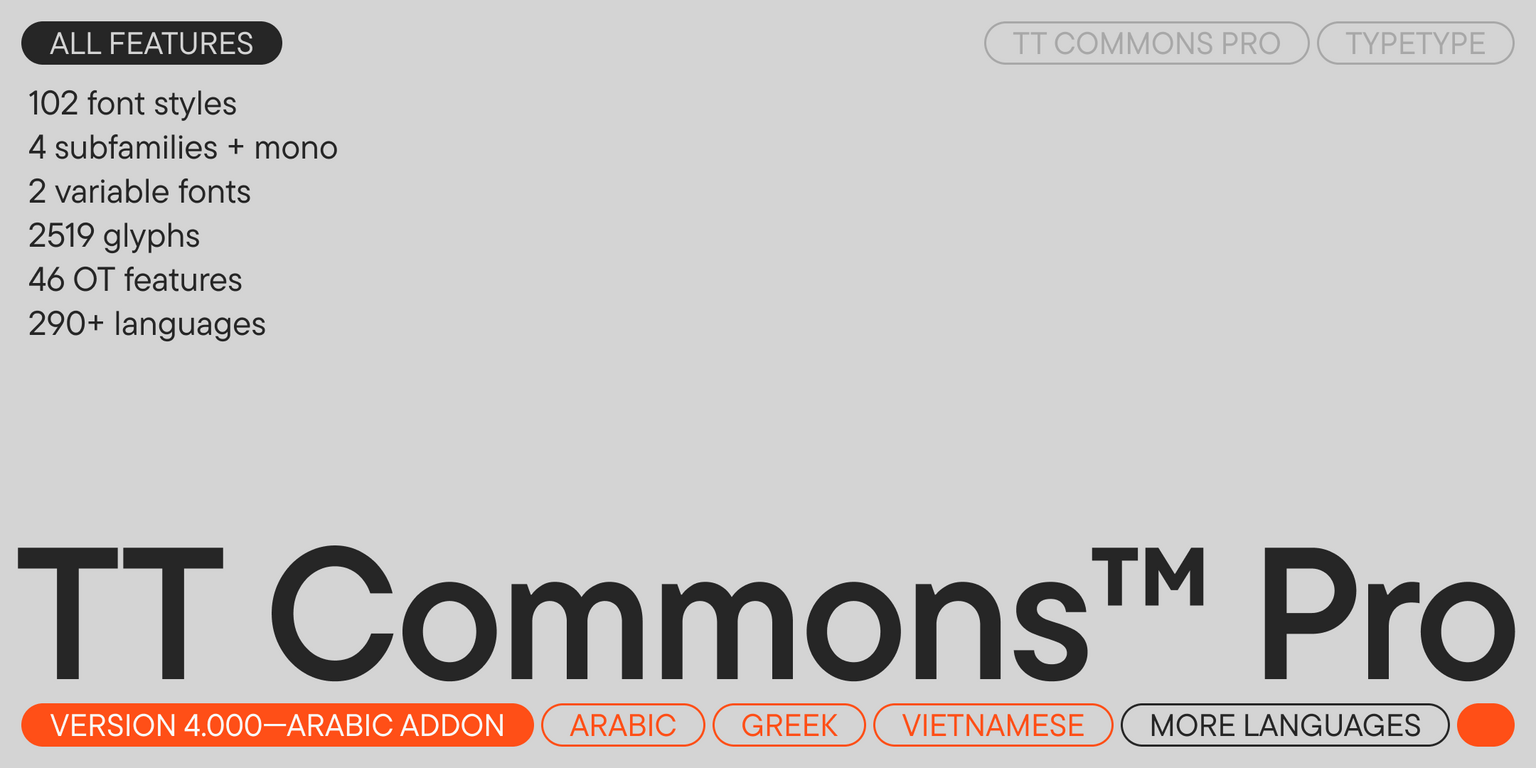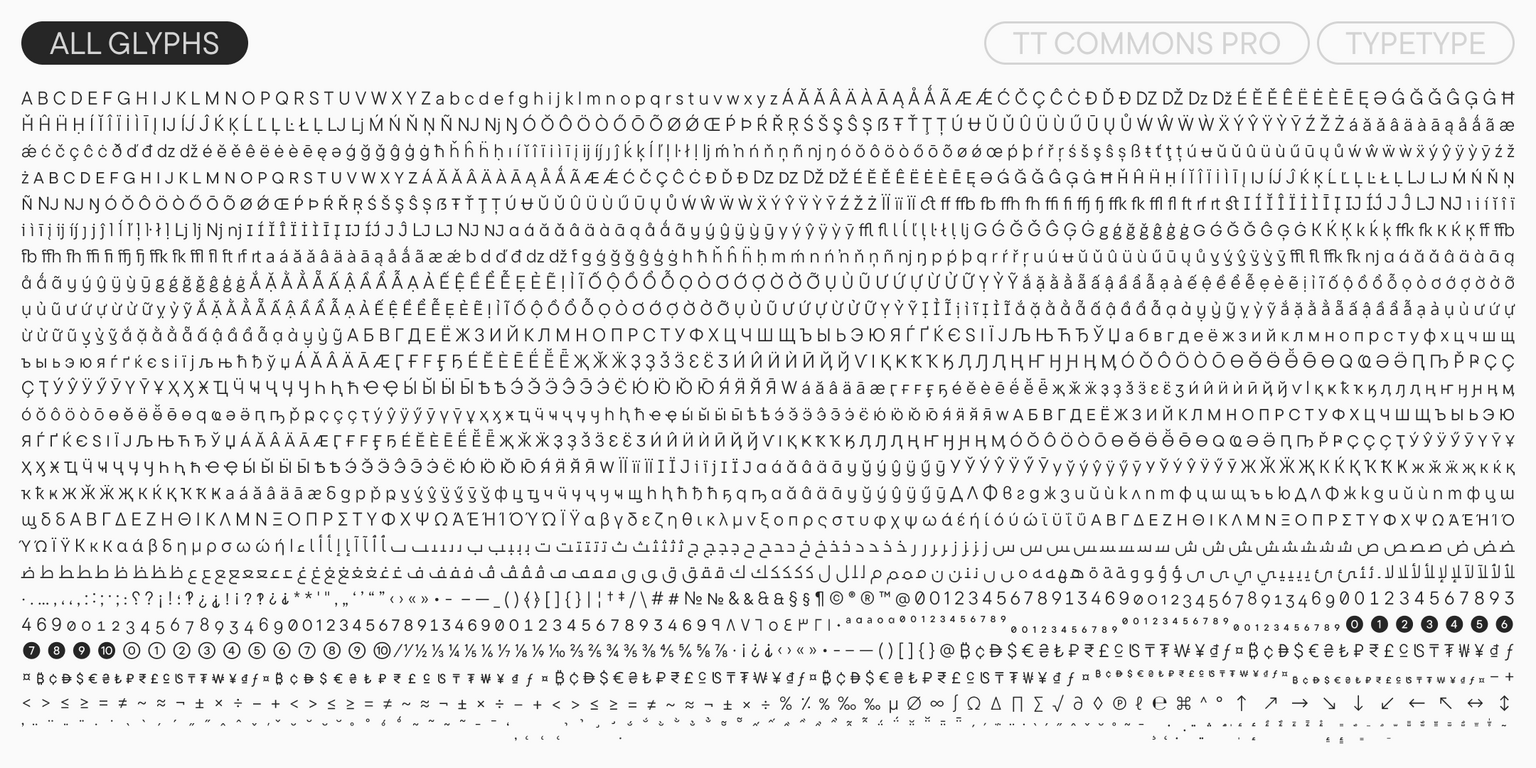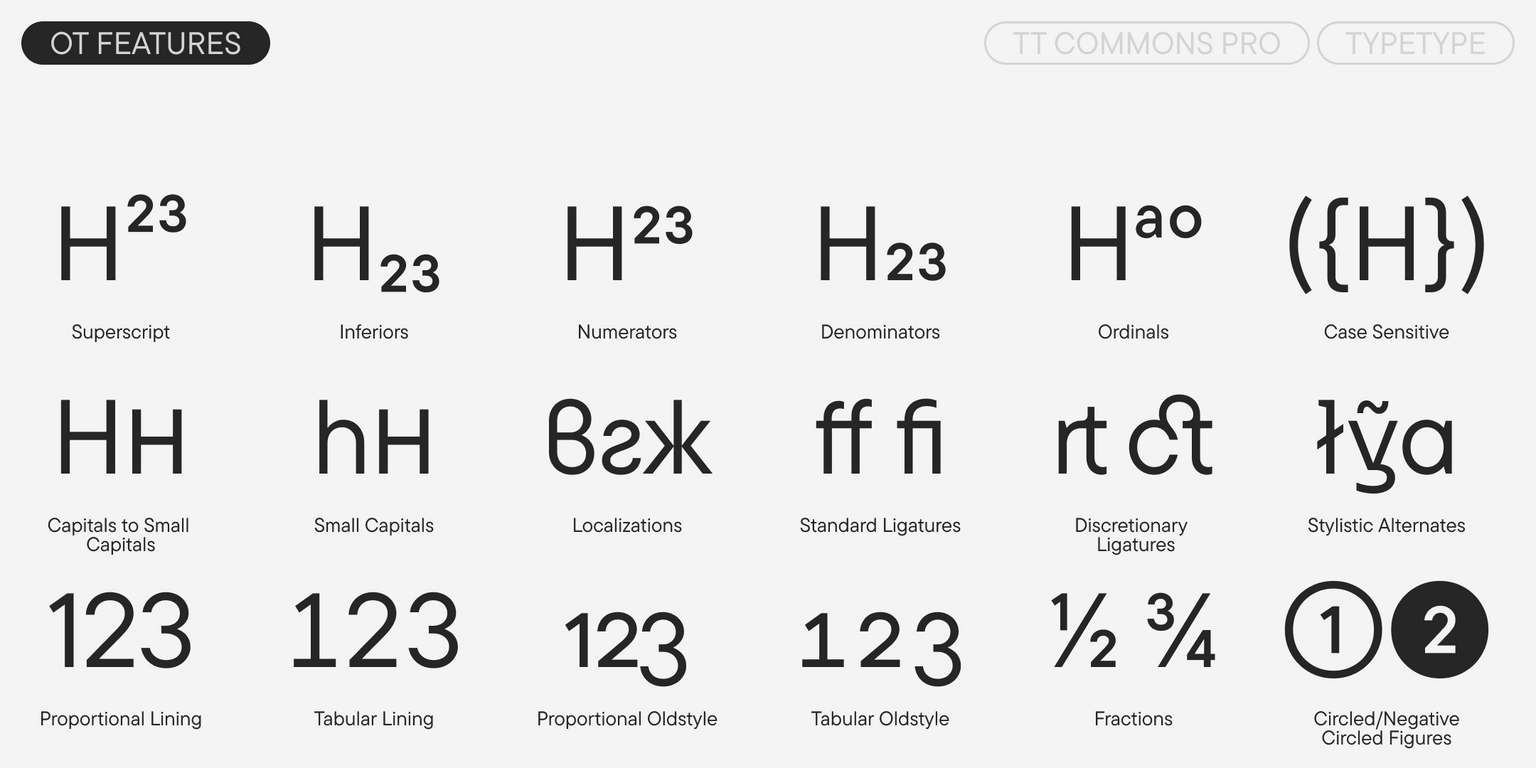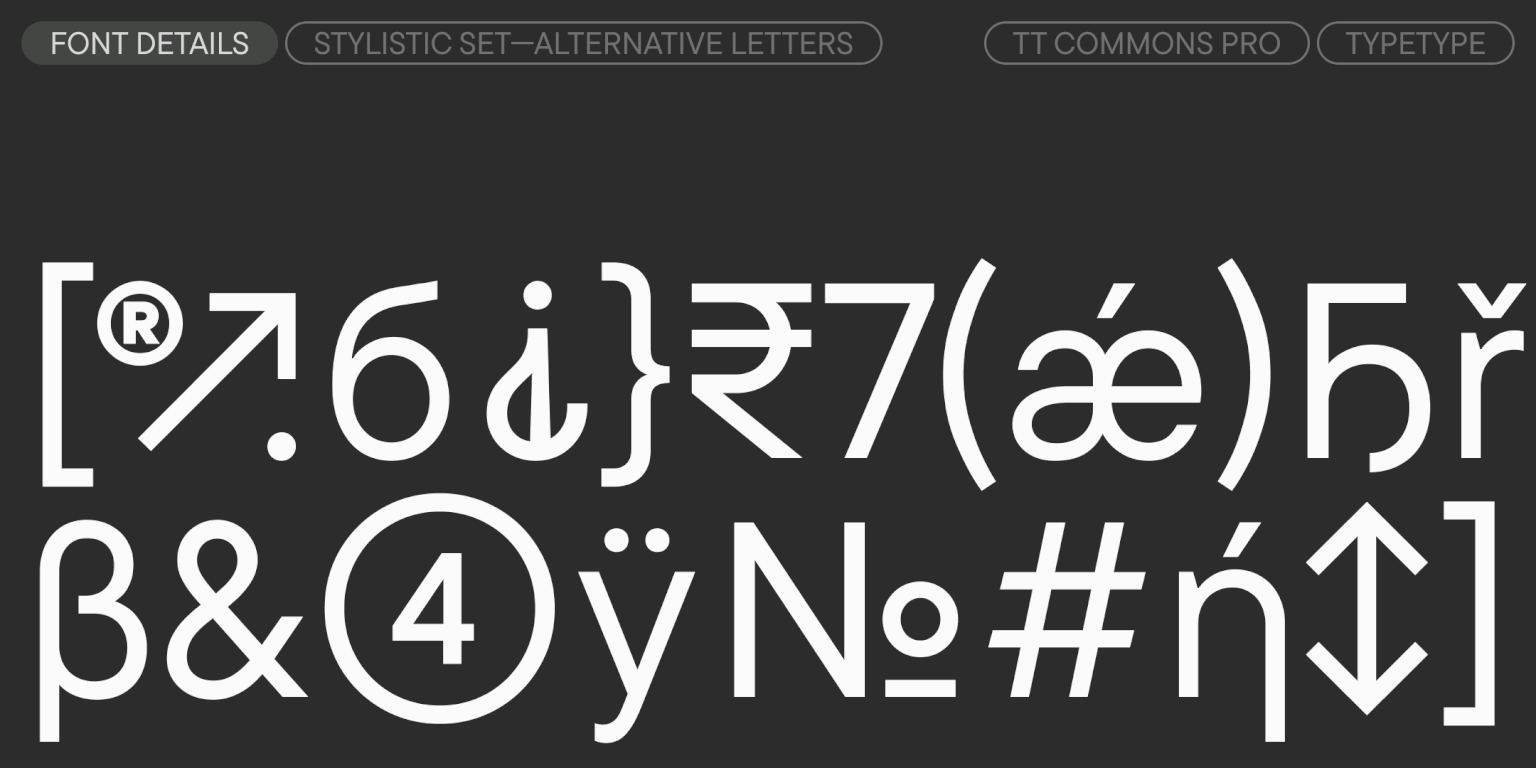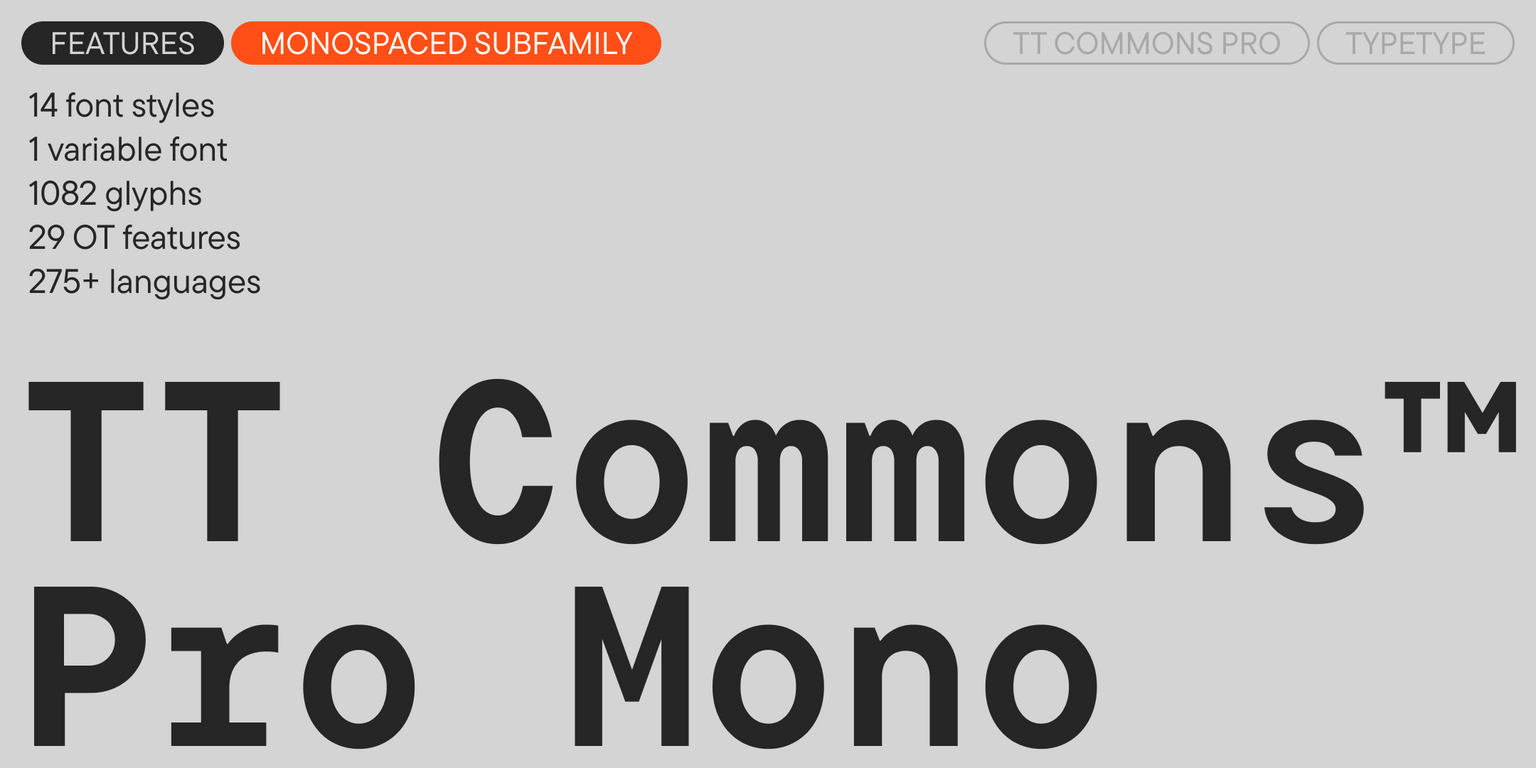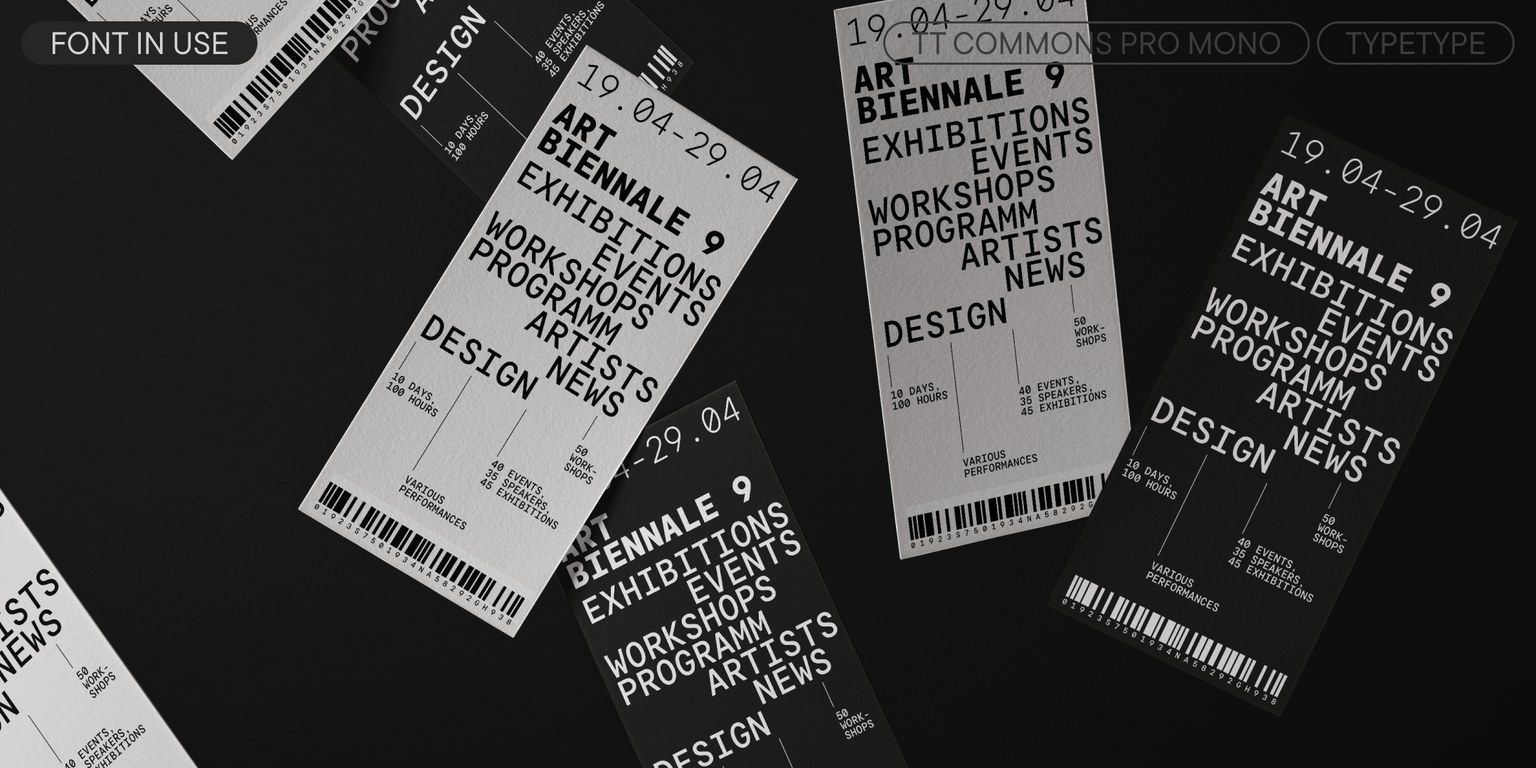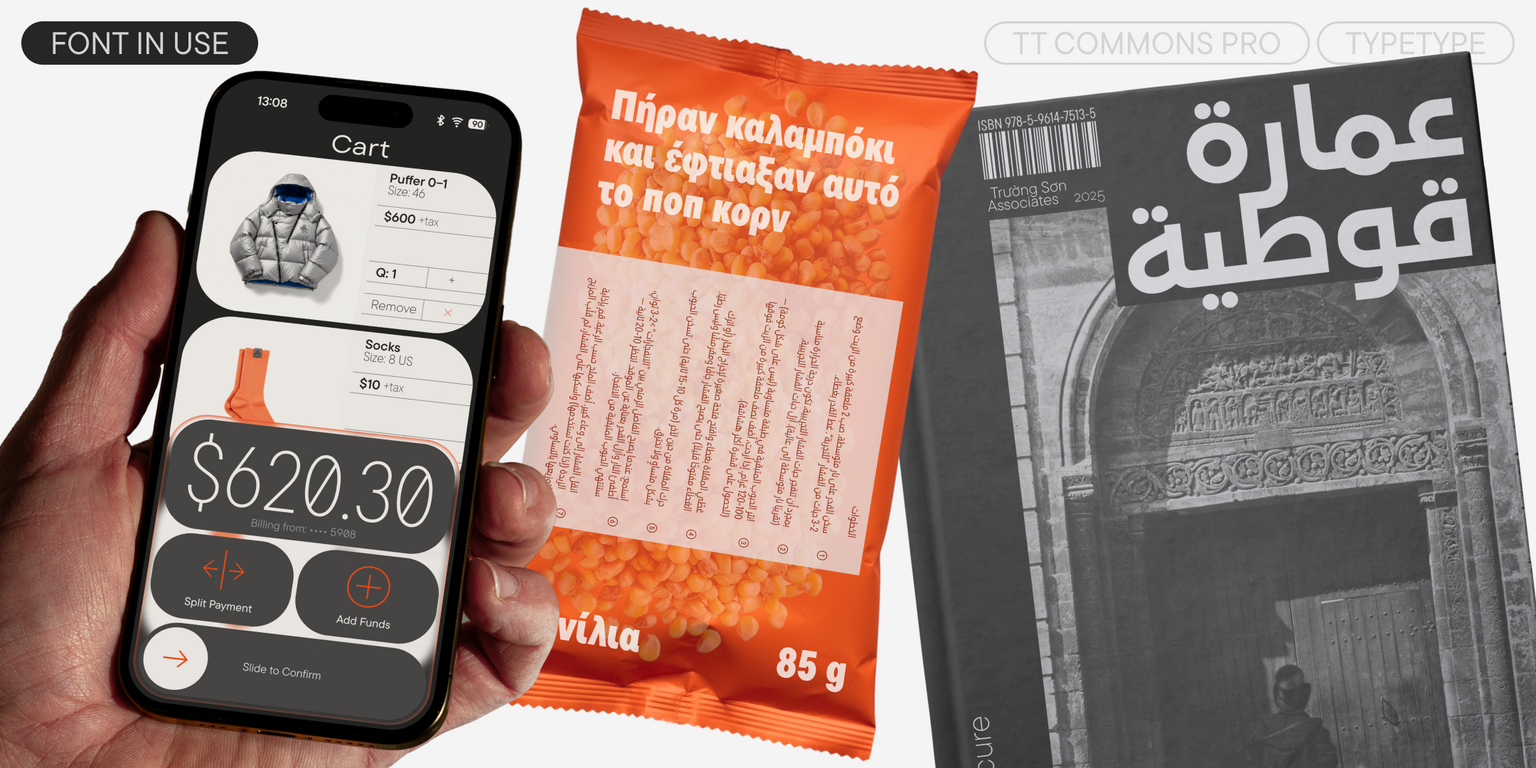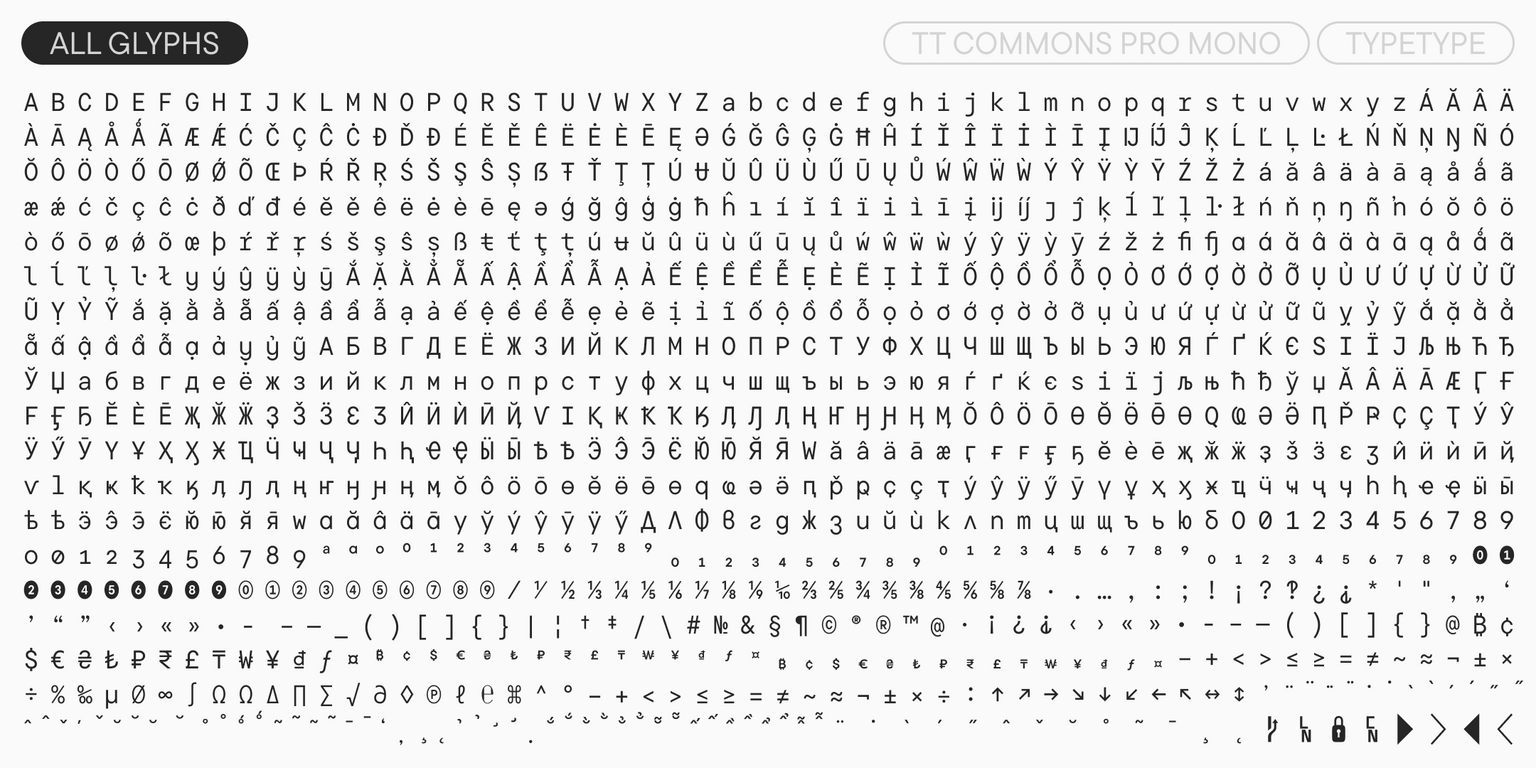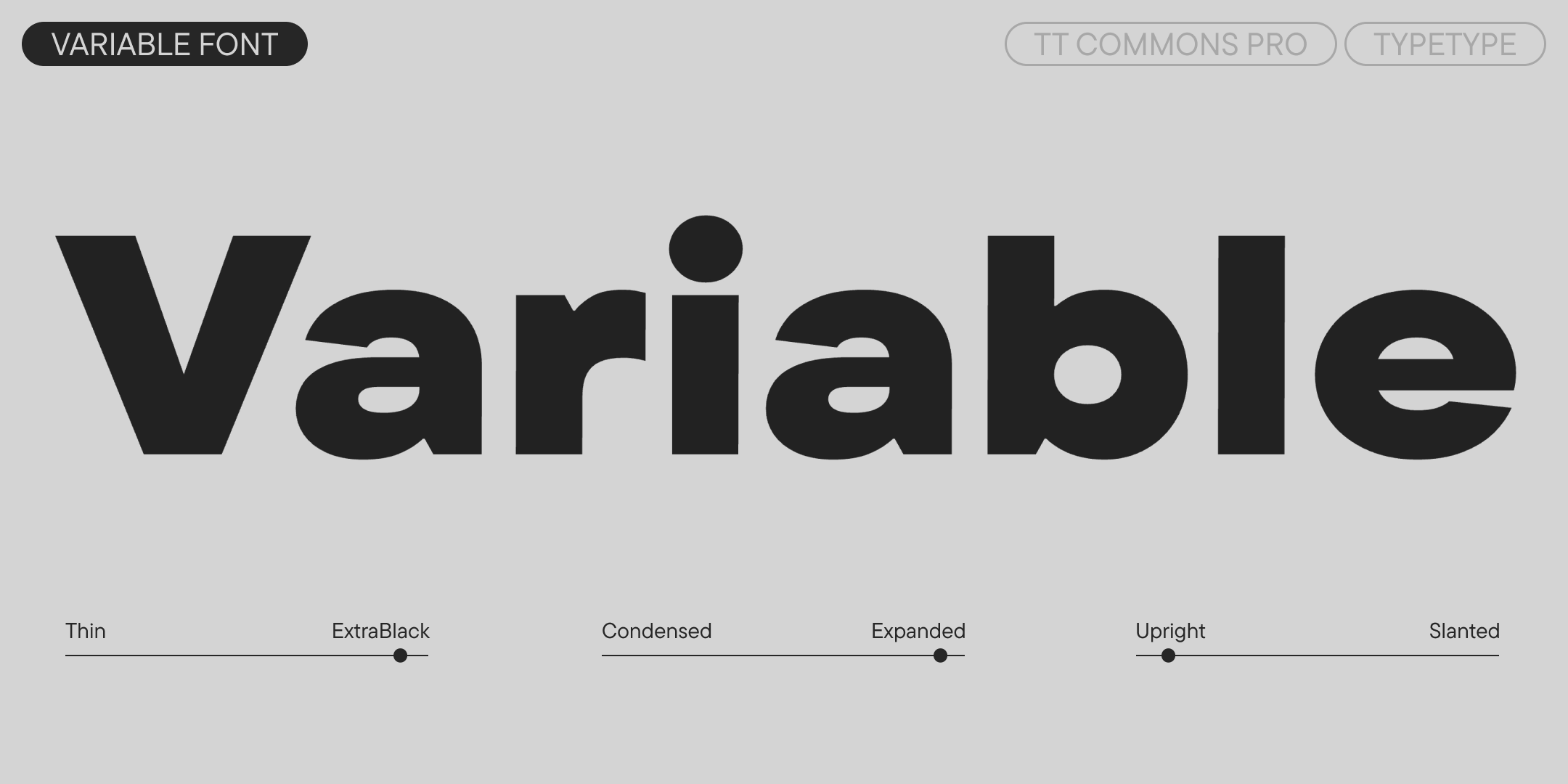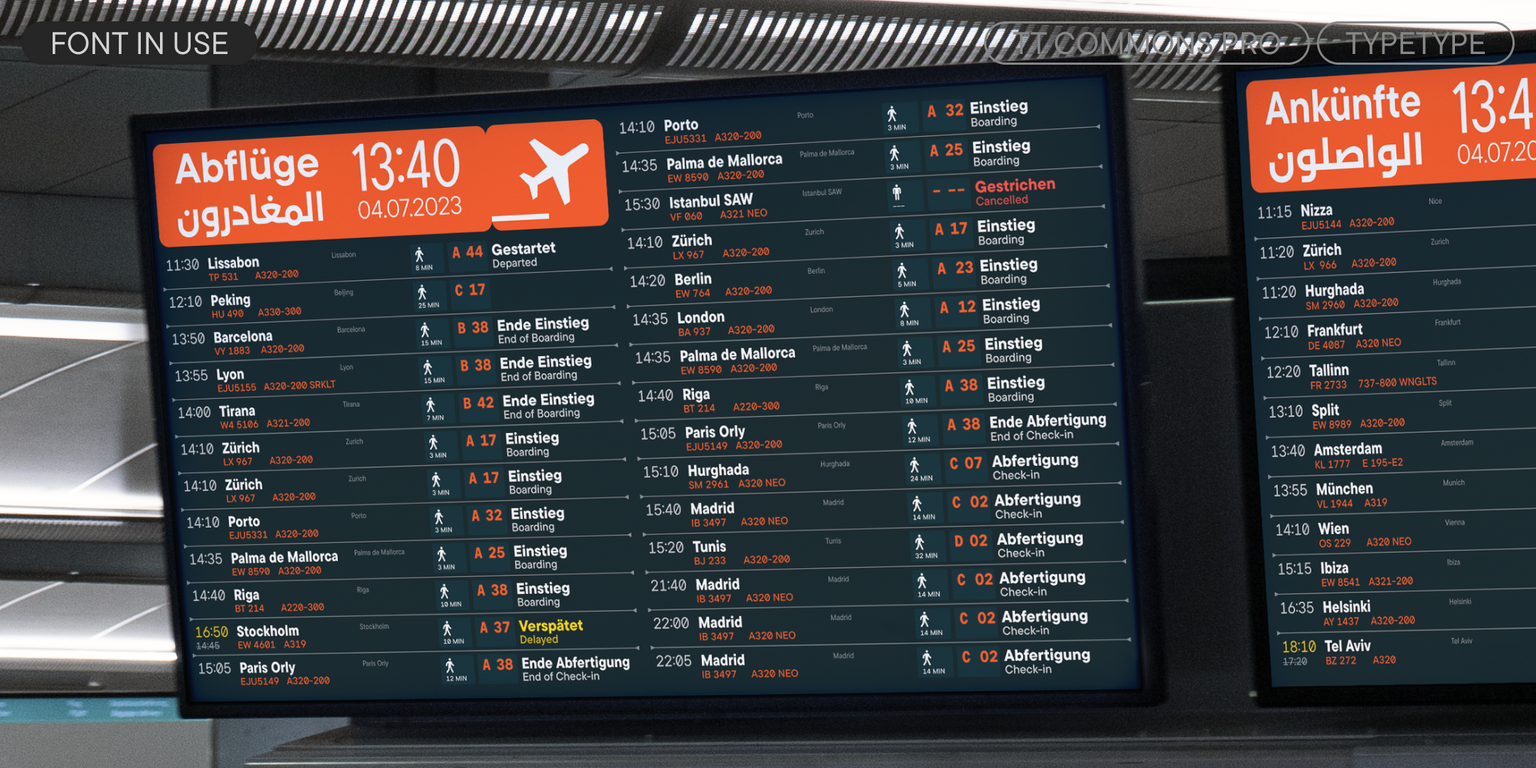
TT Commons™ Pro
TT Commons™ Pro is a versatile geometric sans serif that ranks among the studio's most popular releases. It is adaptable to virtually any design challenge.